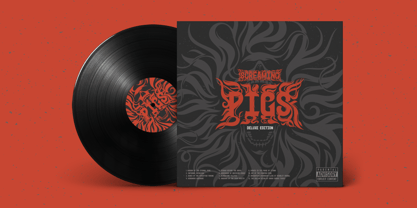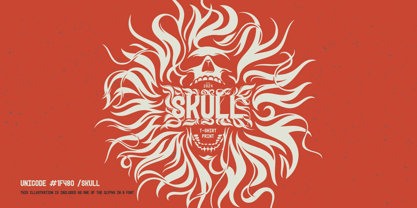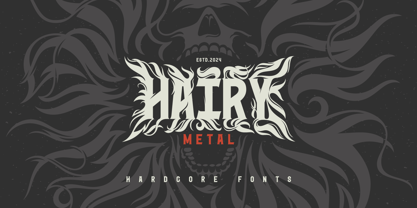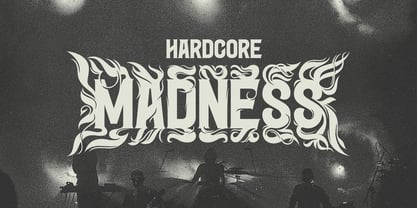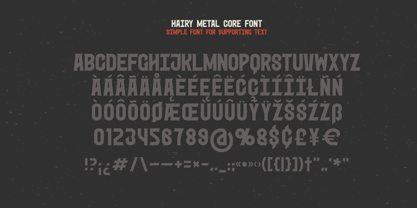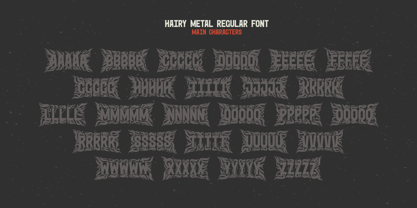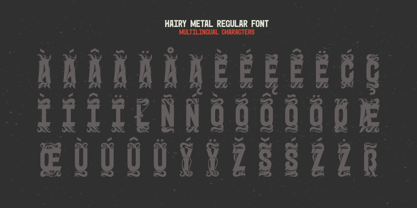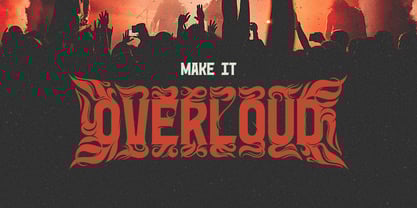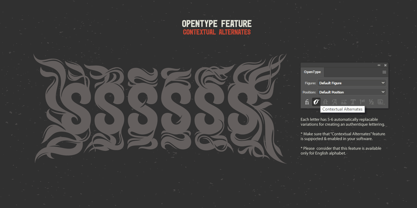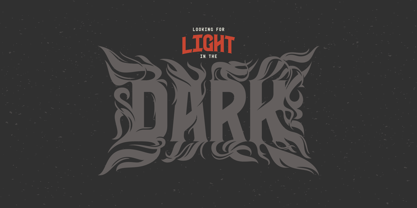
Hairy Metal
by Gleb Guralnyk
The Hairy Metal Font Family was designed by Gleb Guralnyk and published by Gleb Guralnyk. Hairy Metal contains 2 styles and family package options. More about this family
Hello! Introducing Hairy Metal, an originally designed decorative font. This aggressive typeface features abstract, spreading lines that resemble tousled strands of hair. Each letter has 5–6 variations that switch automatically to create a seamless effect. A simplified base font without the special effects is also included, perfect for typing supporting text.
Additionally, a screaming skull illustration is included as one of the glyphs in the font (Unicode: #1F480). You can access it by typing "/skull" in your text.